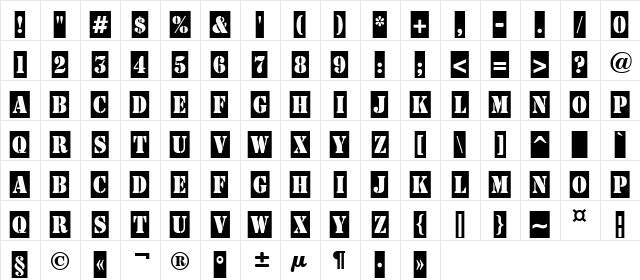
a_StamperCm Regular
Design Context for a_StamperCm Typeface
a_StamperCm borrows the utilitarian aesthetic of stencil lettering, with its characteristic cutaways and no-frills construction lending an industrial edge.
A strong choice for packaging that needs edge, warehouse aesthetics, and rough-and-ready visual identities.
Pro Tip: Use a_StamperCm at large sizes on packaging, posters, or apparel where the stencil cutaways read clearly. Avoid small sizes where those gaps become visual noise.